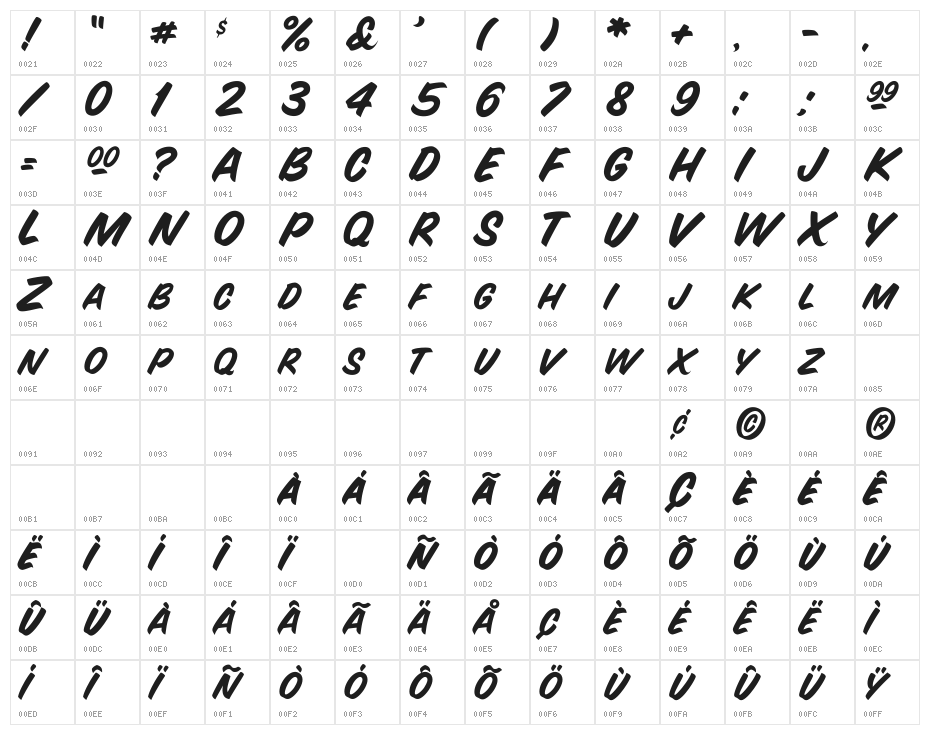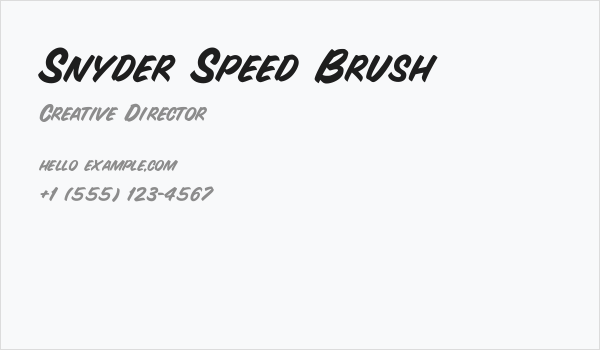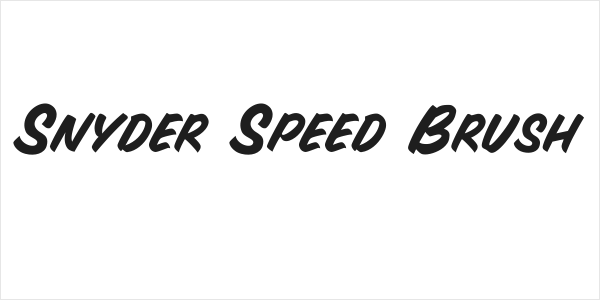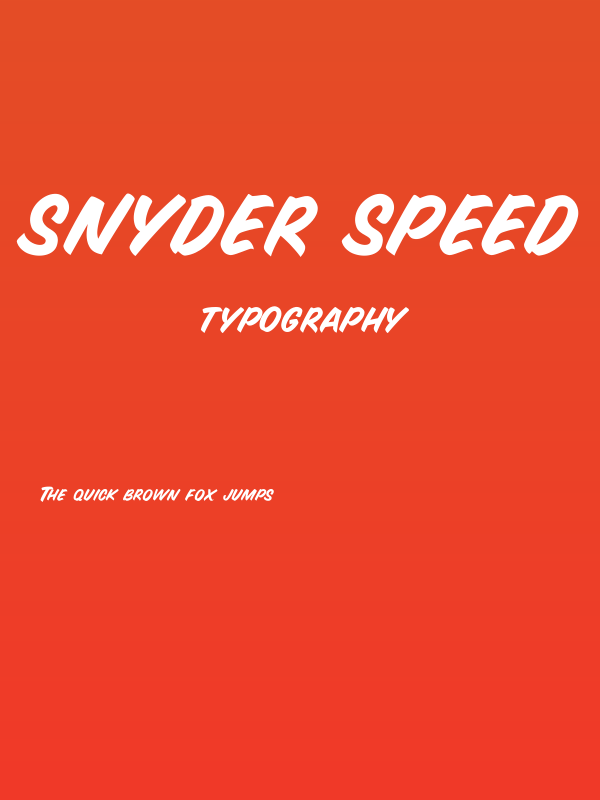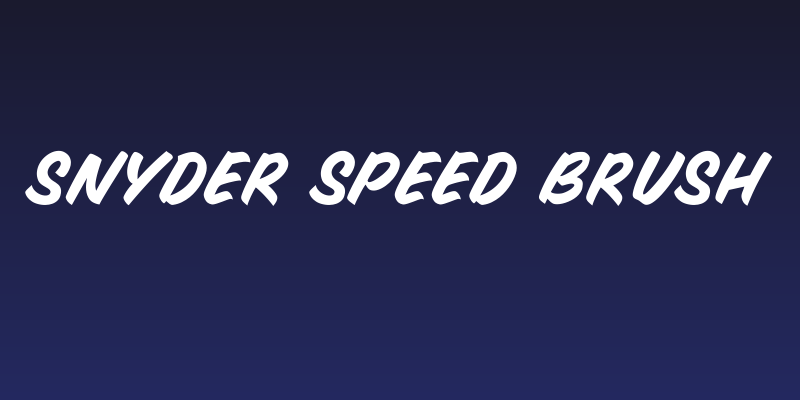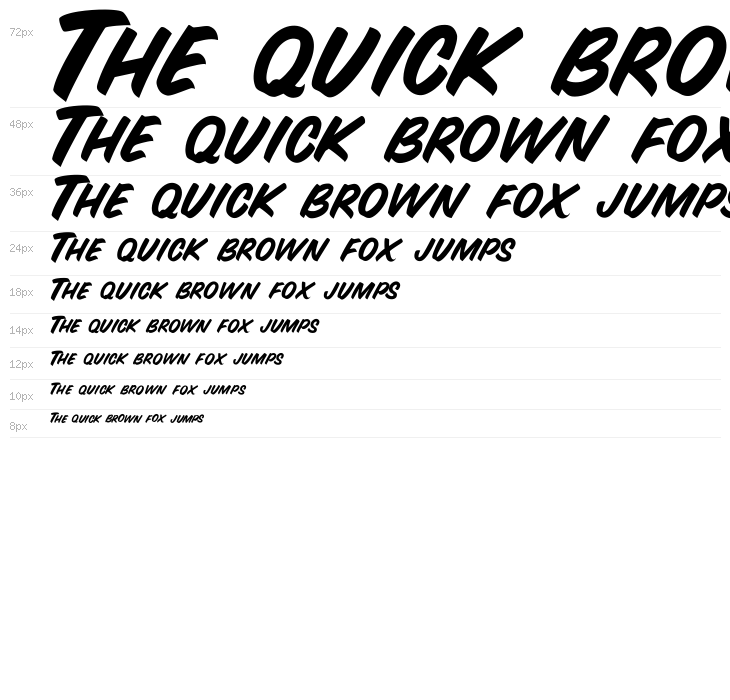
Snyder Speed Brush Font
Snyder Speed Brush Description
This dynamic and energetic font features bold, sweeping strokes that mimic the fluidity and spontaneity of brush lettering. The characters are slightly slanted, adding a sense of motion and speed, which is enhanced by the thick, consistent strokes. The uppercase and lowercase letters maintain a cohesive style, with rounded edges and a playful yet assertive presence. The numerals and special characters follow the same aesthetic, ensuring uniformity across all text elements. This font's bold appearance makes it ideal for grabbing attention and conveying a sense of urgency or excitement.
| Proposed Projects | Ideal for sports branding, dynamic posters, event flyers, and any project needing a bold, energetic typeface. |